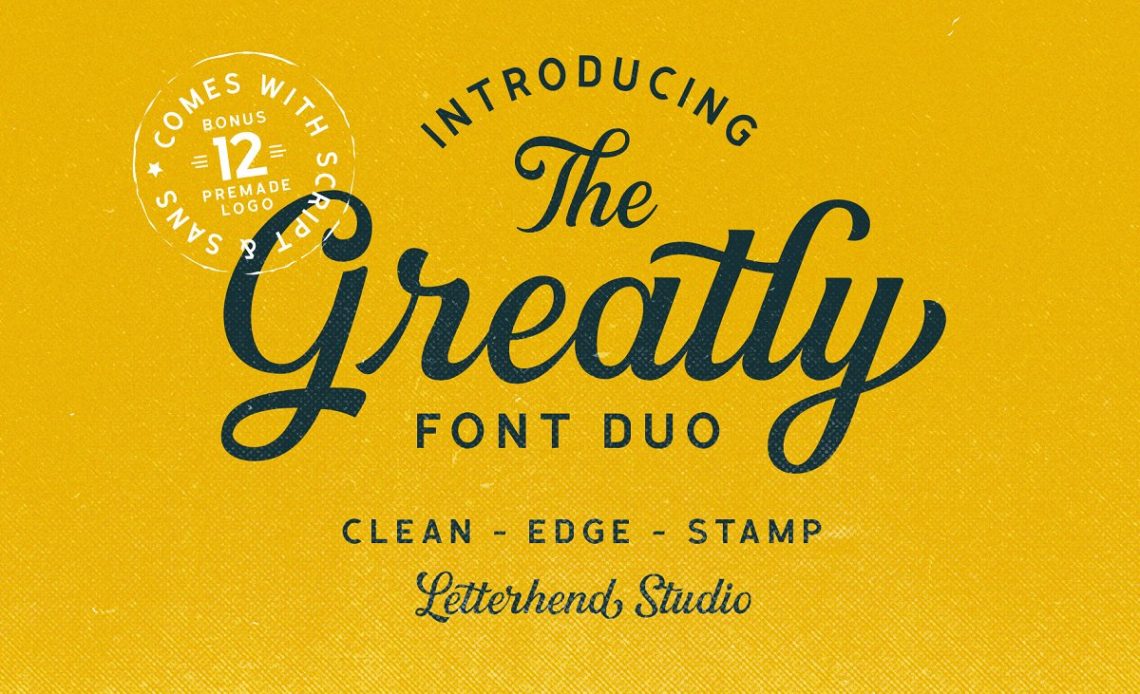
Looking for the perfect script font for your next project? Look no further than Greatly Font Duo, created by the talented Hendry Juanda. This font duo features a perfect balance between script and sans fonts, making it the ideal choice for logotypes, apparel, invitations, branding, packaging, advertising, and more.
Greatly Font Duo is not your average font. It is packed with amazing features such as uppercase and lowercase letters, punctuations, symbols, and numerals. Additionally, it comes with stylistic set alternate, ligatures, and supports multiple languages, making it perfect for international projects. The font is already PUA encoded, which means that it is easily accessible to anyone.
Greatly Font Duo is available in three versions - Clean, Edge, and Stamp - each with its unique characteristics. In addition, Caligor Sans Clean, Caligor Sans Edge, and Caligor Sans Stamp are included, giving you even more options to choose from.